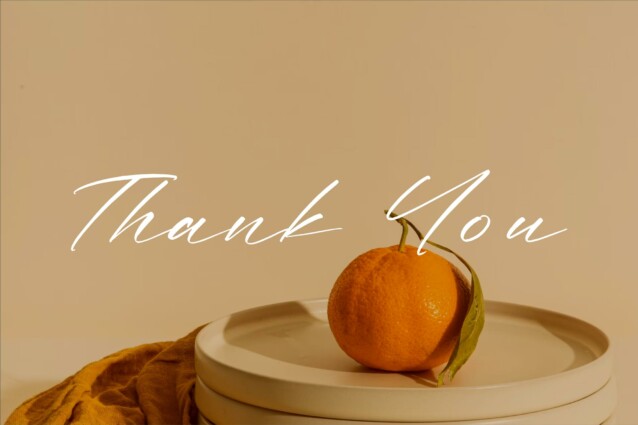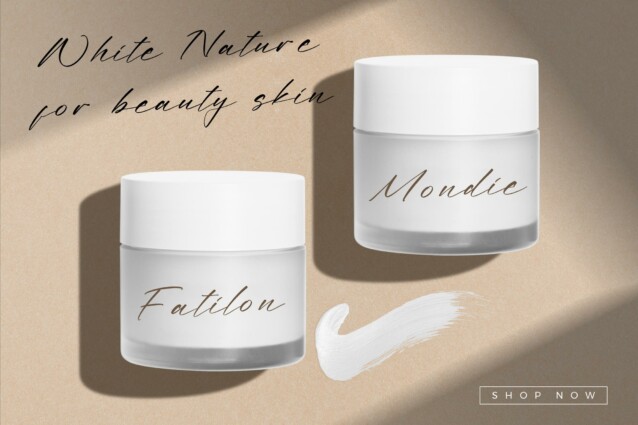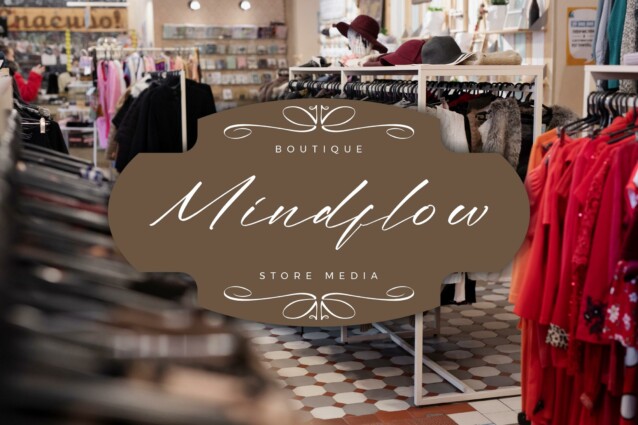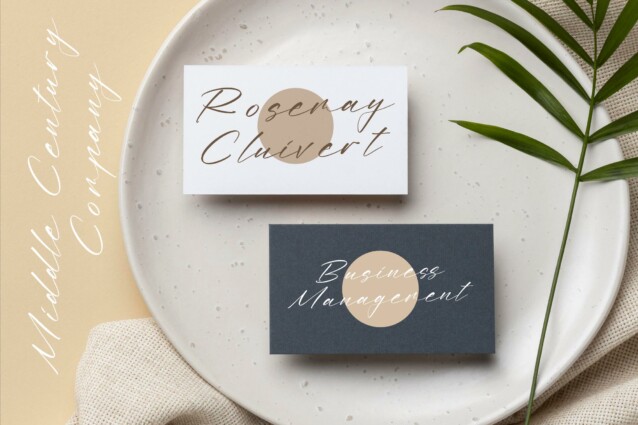
Vinletha Gyldham Font
Vinletha Gyldham Font is a modern script font, suitable for any projects such as: logos, branding projects, homeware designs, product packaging, mugs, quotes, posters, shopping bags, t-shirts, book covers, name card, invitation cards, greeting cards, label, photography, watermark, special events, and all your other lovely projects that need a beautiful script taste.